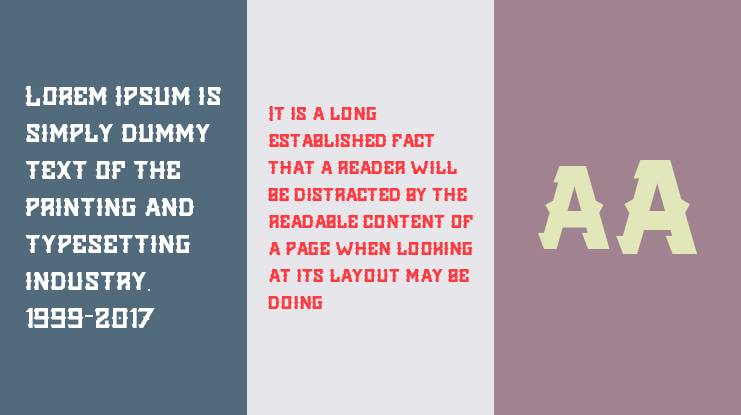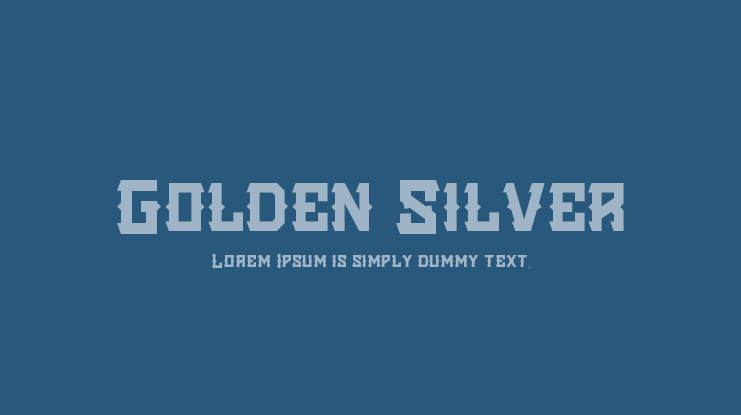
Golden Silver Font Family
Display Studio
Introducing our new release,Golden Silver Display Typeface. This typeset is perfect for brand logo, invitations, greeting card, or even any kind of project. With multilingual feature and style variations, this typeface would further enhance the aestethical aspect of your work.
Golden Silver font preview
Golden Silver Regular font
Golden Silver Italic font